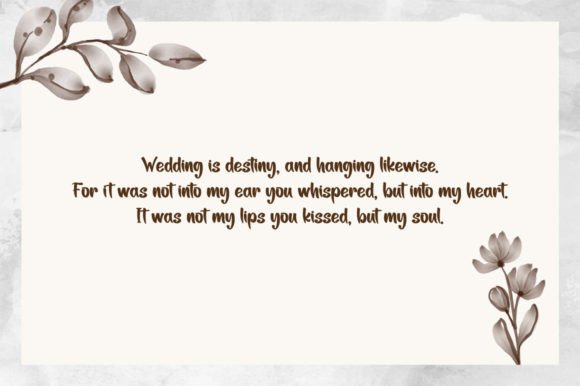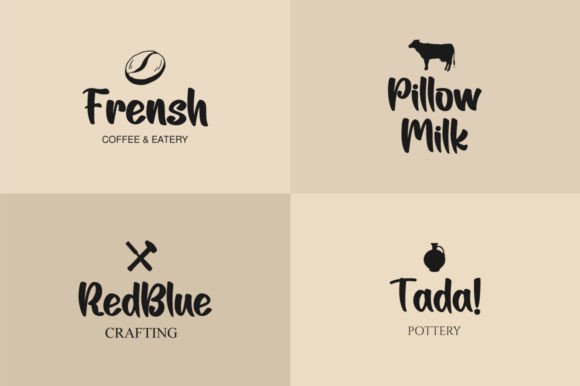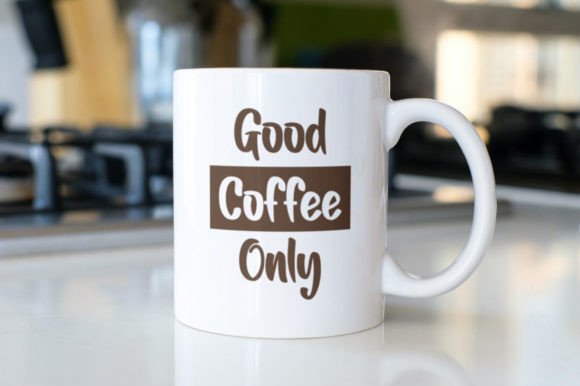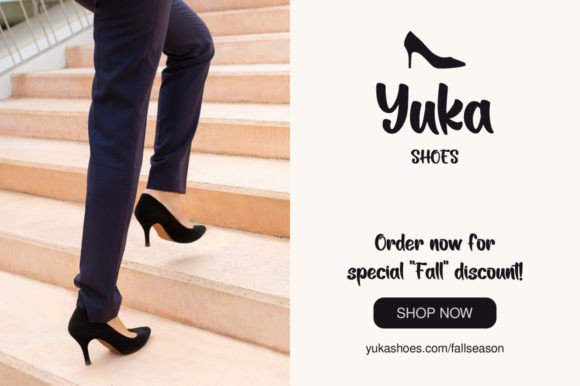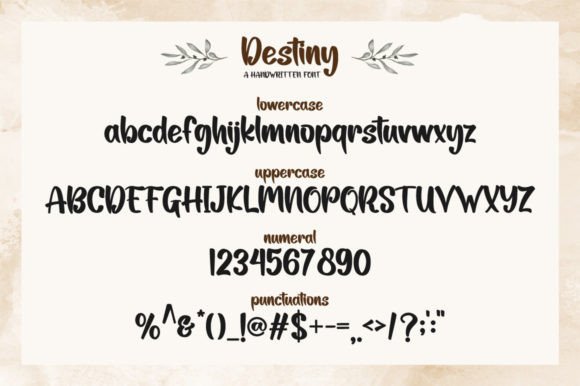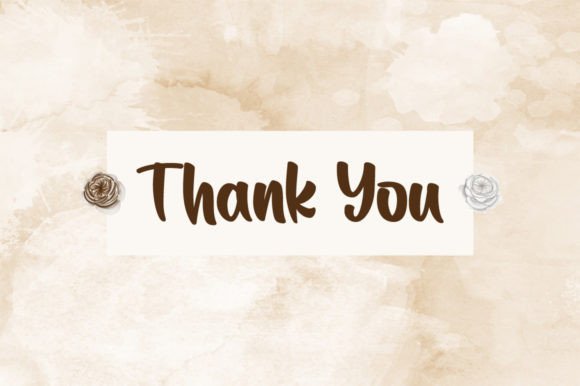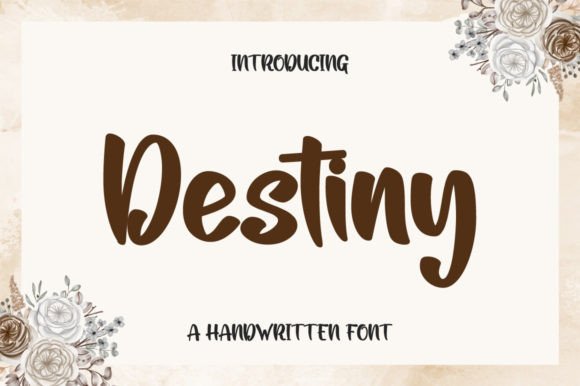
Introducing Destiny Font: The Perfect Handwritten Font for Your Creative Projects
Are you a designer or crafter looking for a font that can add a touch of personality and whimsy to your creative projects? Look no further than Destiny Font, a fun and smart-looking handwritten font that’s perfect for a wide range of applications. In this article, we’ll take a closer look at Destiny Font and explore its features, benefits, and uses.
What is Destiny Font?
Destiny Font is a beautiful, handwritten font that’s designed to add a touch of elegance and sophistication to your designs. With its flowing lines and cursive script, Destiny Font is perfect for creating customized designs that stand out from the crowd. Whether you’re working on an invitation, thank you card, quote, greeting card, logo, business card, or any other design that needs a personal touch, Destiny Font is the perfect choice.
Features of Destiny Font
So, what makes Destiny Font so special? Here are just a few of its key features:
• Handwritten script: Destiny Font is a handwritten font that’s designed to look like it was written with a pen or pencil. This gives it a personal, human touch that’s perfect for creating unique and customized designs.
• Fun and smart-looking: Destiny Font is a fun and playful font that’s perfect for designs that need a touch of whimsy and personality. At the same time, it’s also smart-looking and elegant, making it suitable for more formal designs.
• Versatile: Destiny Font is a versatile font that can be used for a wide range of applications, from invitations and greeting cards to logos and business cards.
• Easy to read: Despite its handwritten script, Destiny Font is easy to read and understand, making it perfect for designs that need to communicate a message.
Benefits of Using Destiny Font
So, why should you choose Destiny Font for your creative projects? Here are just a few of the benefits of using this amazing font:
• Adds a personal touch: Destiny Font adds a personal touch to your designs, making them stand out from the crowd and giving them a unique, human feel.
• Perfect for creative projects: Destiny Font is perfect for creative projects that need a touch of personality and whimsy. Whether you’re working on a DIY craft project or a professional design project, Destiny Font is the perfect choice.
• Customizable: Destiny Font is highly customizable, allowing you to adjust its size, color, and style to fit your design needs.
Uses of Destiny Font
So, what can you use Destiny Font for? Here are just a few ideas:
• Invitations: Destiny Font is perfect for creating customized invitations for weddings, birthday parties, and other special events.
• Thank you cards: Use Destiny Font to create beautiful, handwritten thank you cards that add a personal touch to your gifts.
• Quotes: Destiny Font is perfect for creating customized quote designs that add a touch of personality and whimsy to your walls.
• Greeting cards: Use Destiny Font to create customized greeting cards for holidays, birthdays, and other special occasions.
• Logos: Destiny Font can be used to create customized logos for businesses, websites, and other organizations.
• Business cards: Use Destiny Font to create customized business cards that add a personal touch to your professional brand.
Font Name Destiny Font
In conclusion, Destiny Font is a fun and smart-looking handwritten font that’s perfect for designers and crafters who want to add a touch of personality and whimsy to their creative projects. With its flowing lines, cursive script, and versatile design, Destiny Font is perfect for a wide range of applications, from invitations and greeting cards to logos and business cards. So why wait? Download Destiny Font today and start creating your own customized designs!